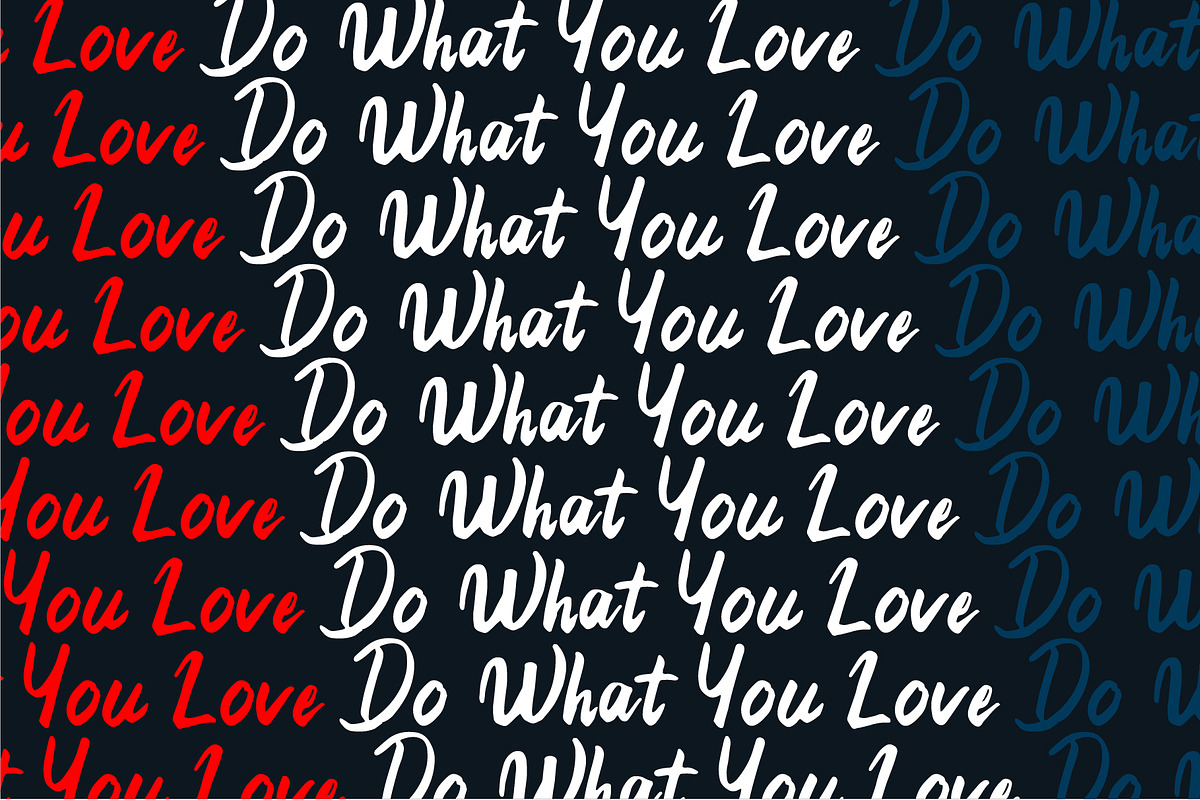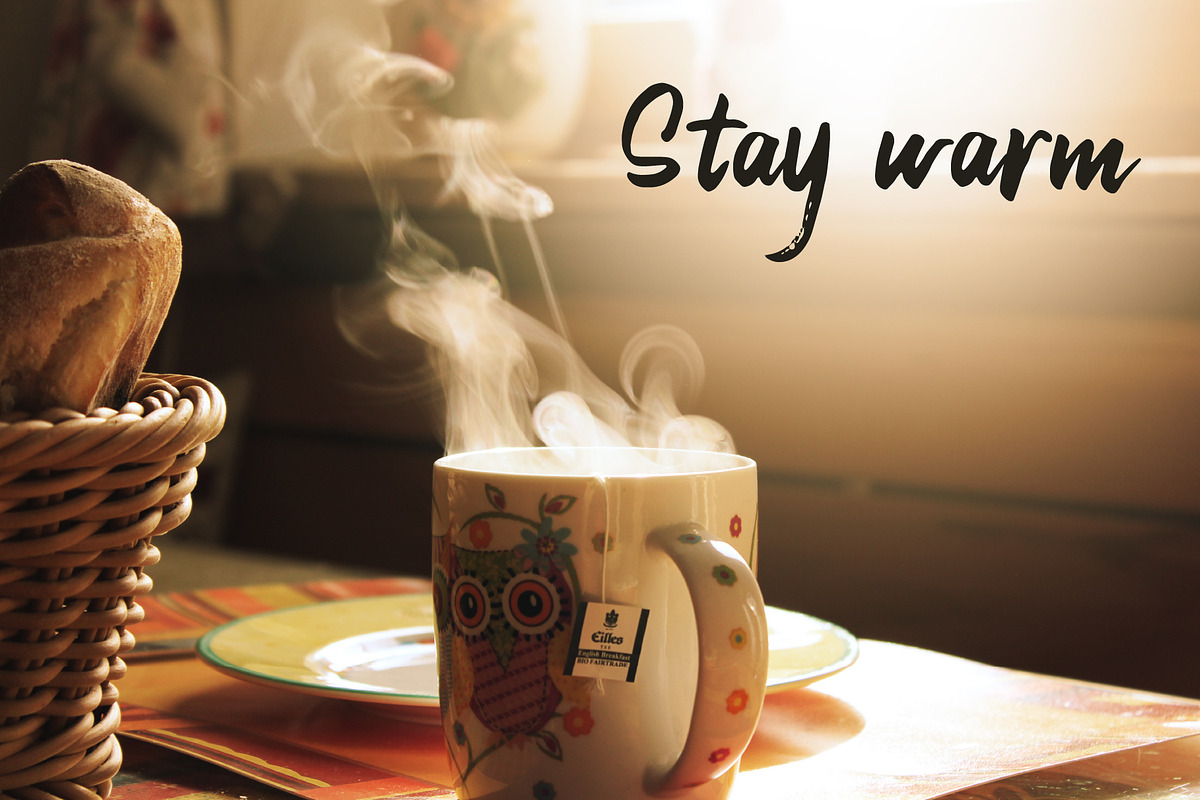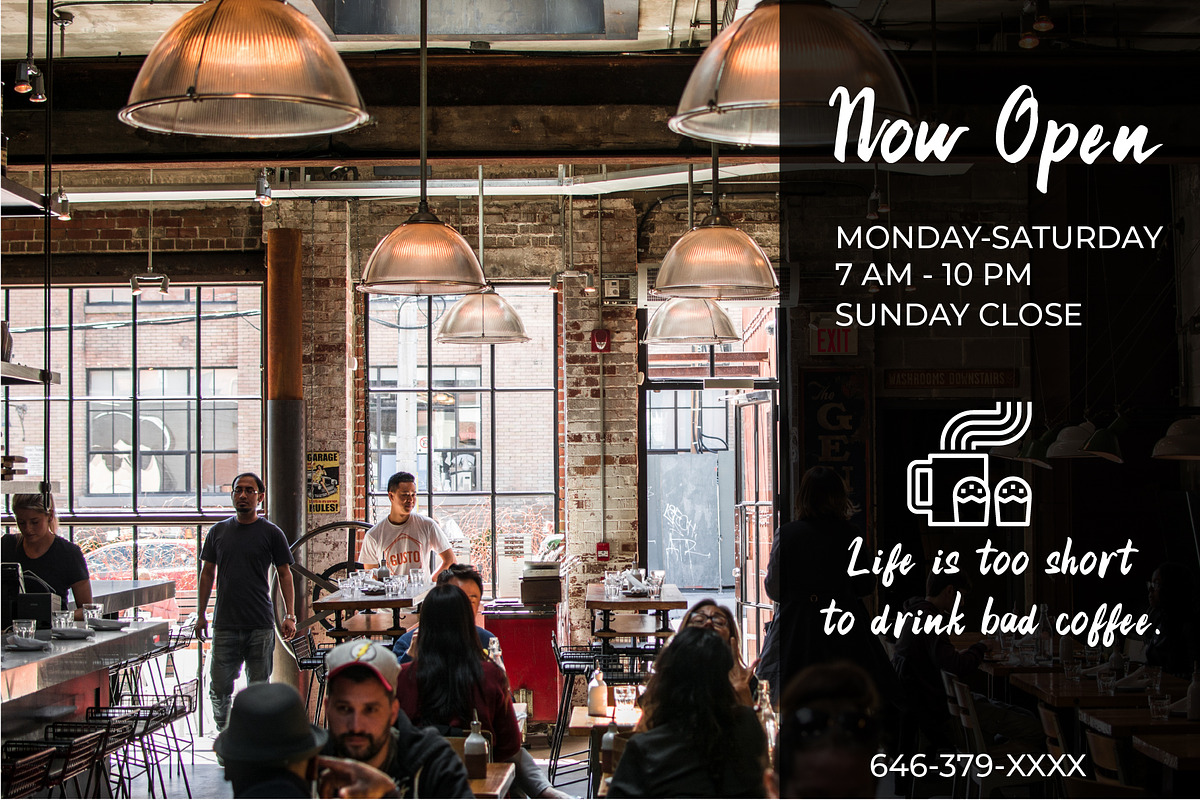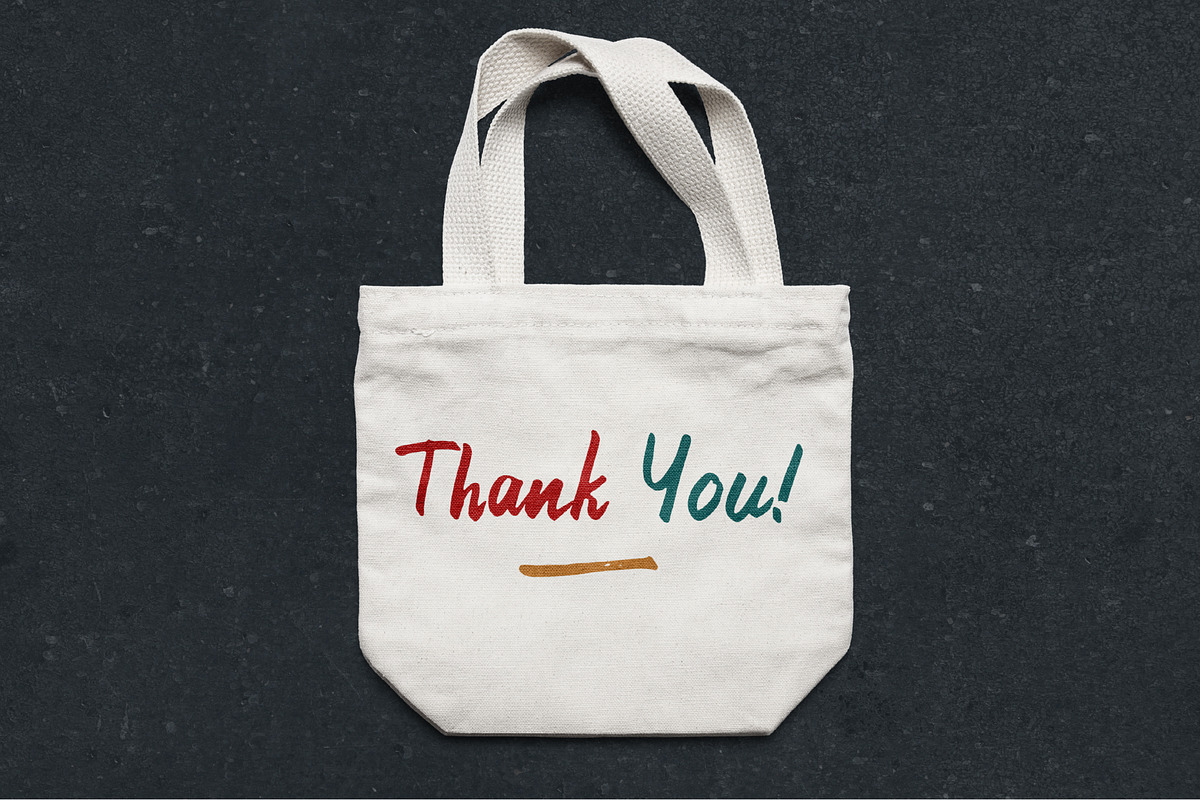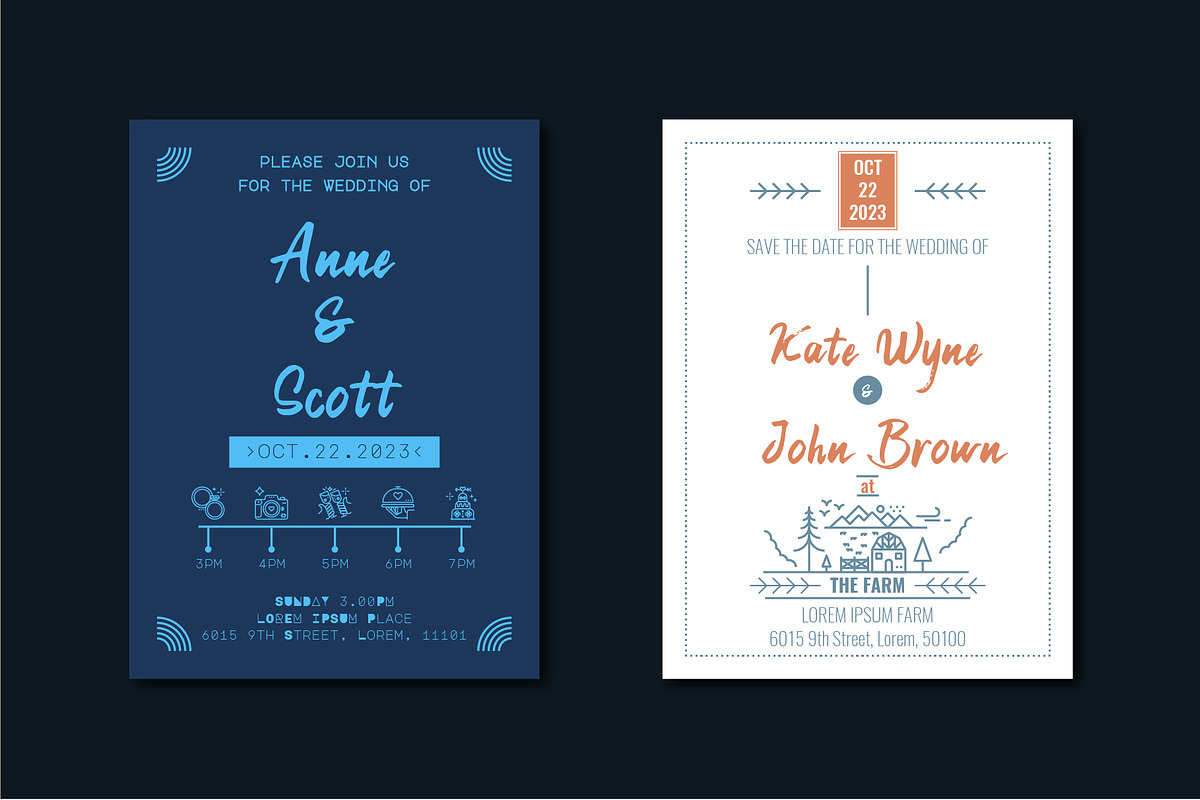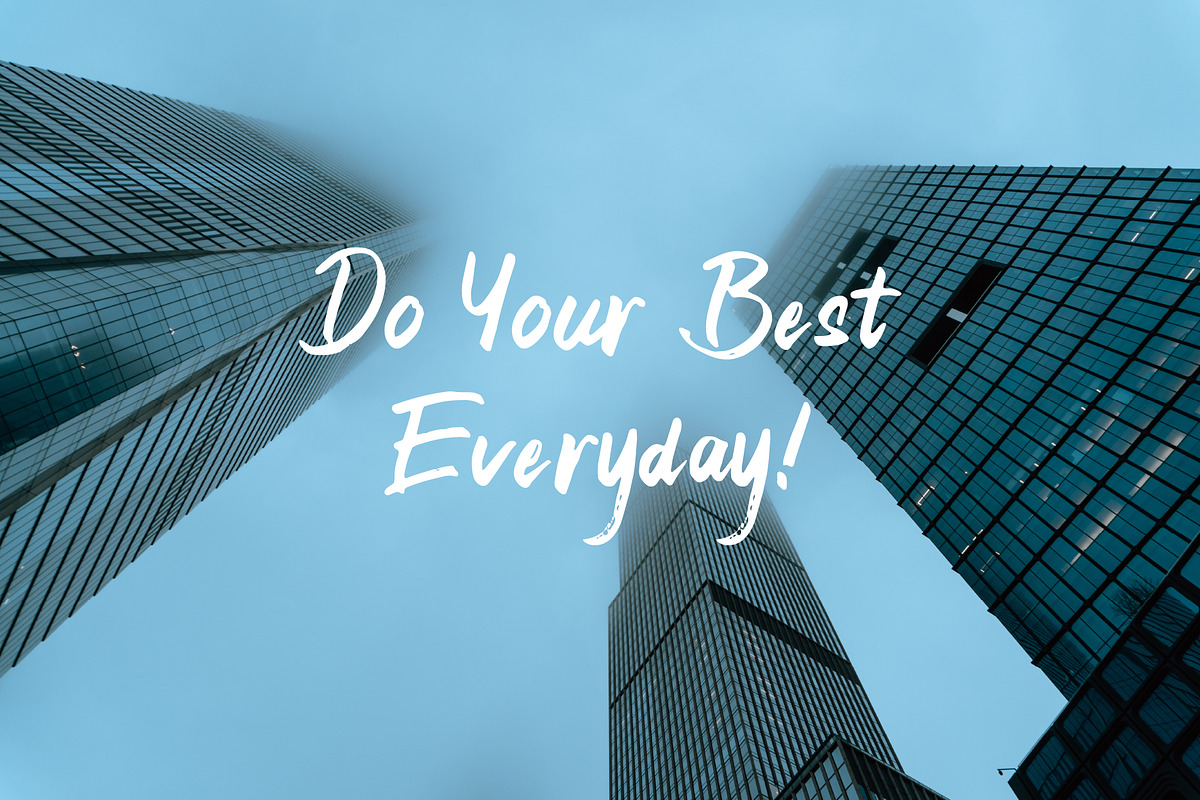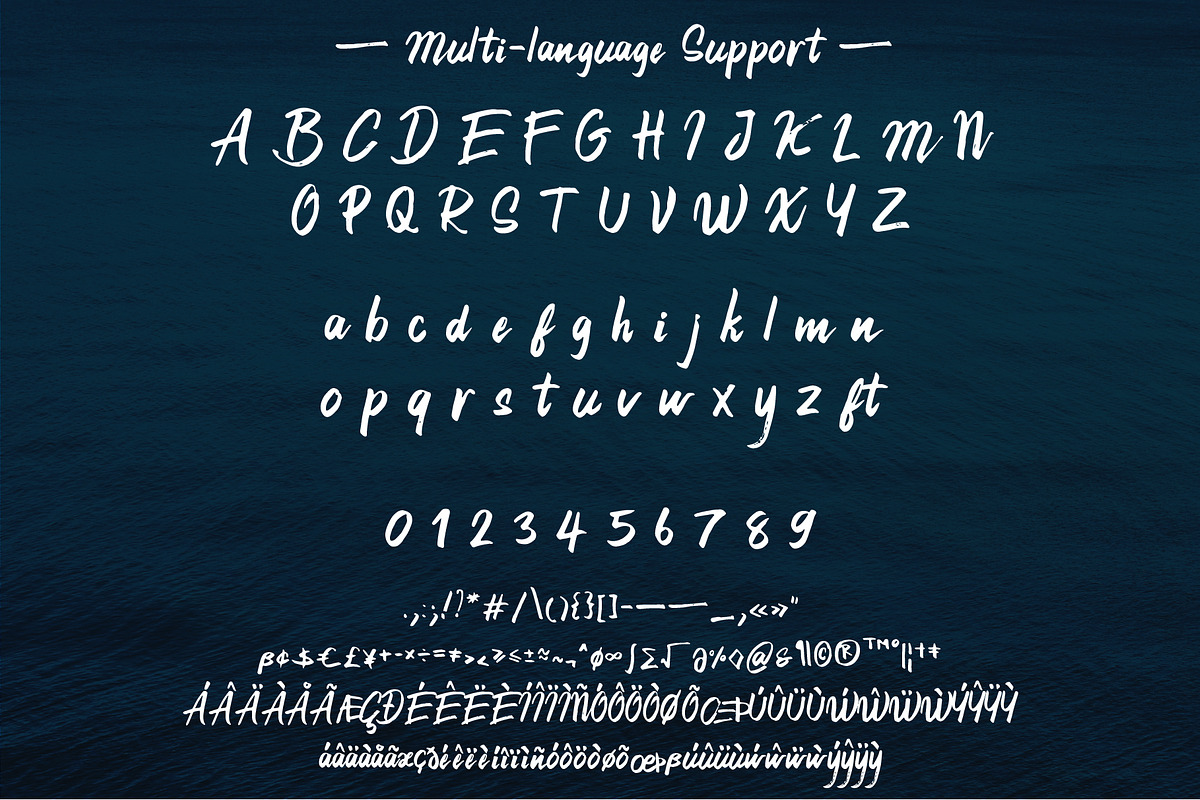
21st Street Hand brush Typeface
I would like to introduce 21st Street, a hand brush typeface
21st Street is a handwriting brush typeface created from a real brush pen. Giving off a fun vibe, informal and human handwriting look. It can be used as a cute minimal-style header display or as a stylish text for magazine, blog, branding, packaging, wedding invitation project, etc.
By the way, In the cover preview is the beautiful evening Ed Koch Queensboro Bridge. I took that picture in the cold day evening in November 2019. You can go to this place by using New York City subway and get off at 21st Street Queensbridge station.
Standard English(A-Z, a-z)
Western European supported
numbers(0-9) & punctuations